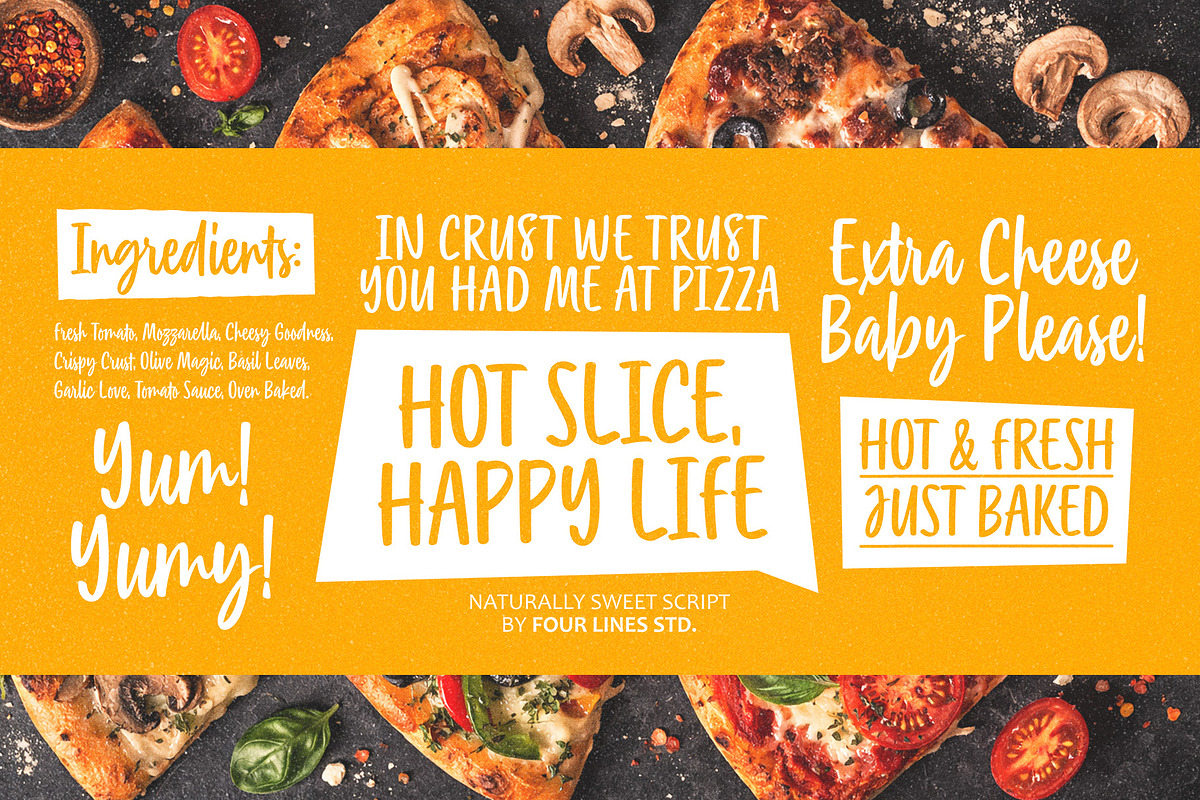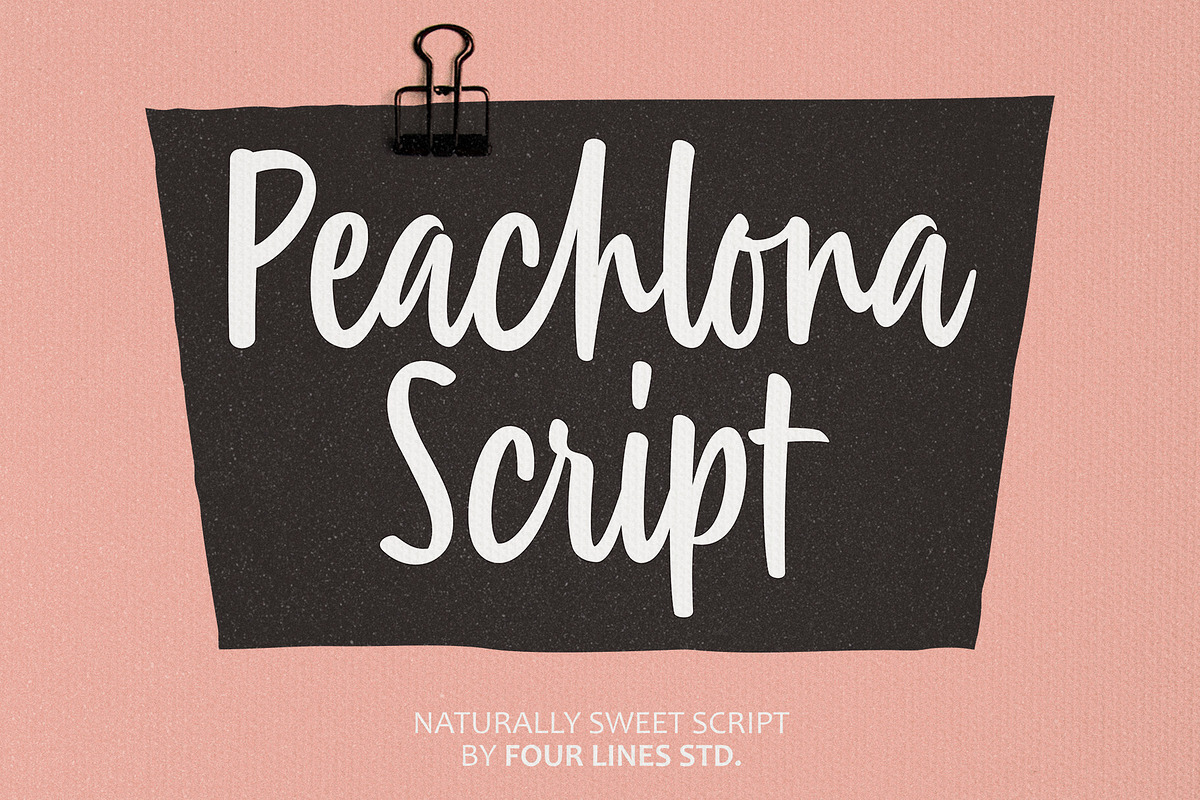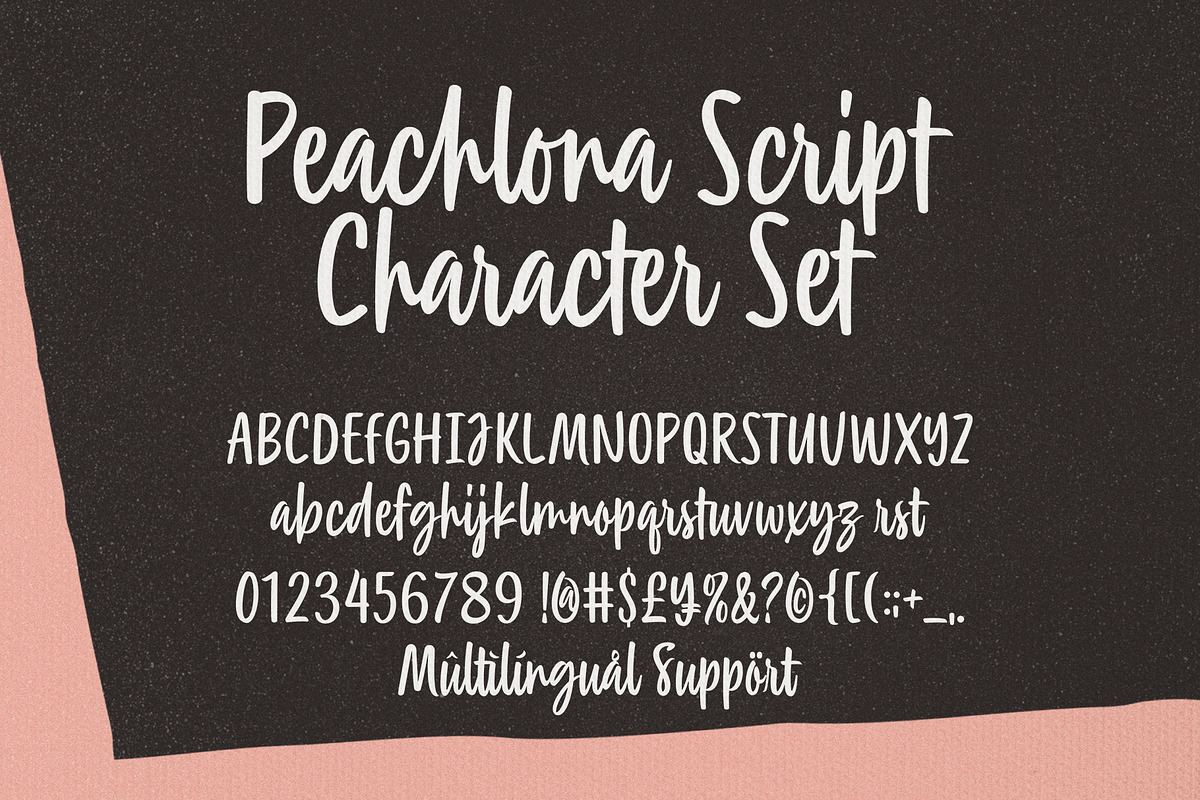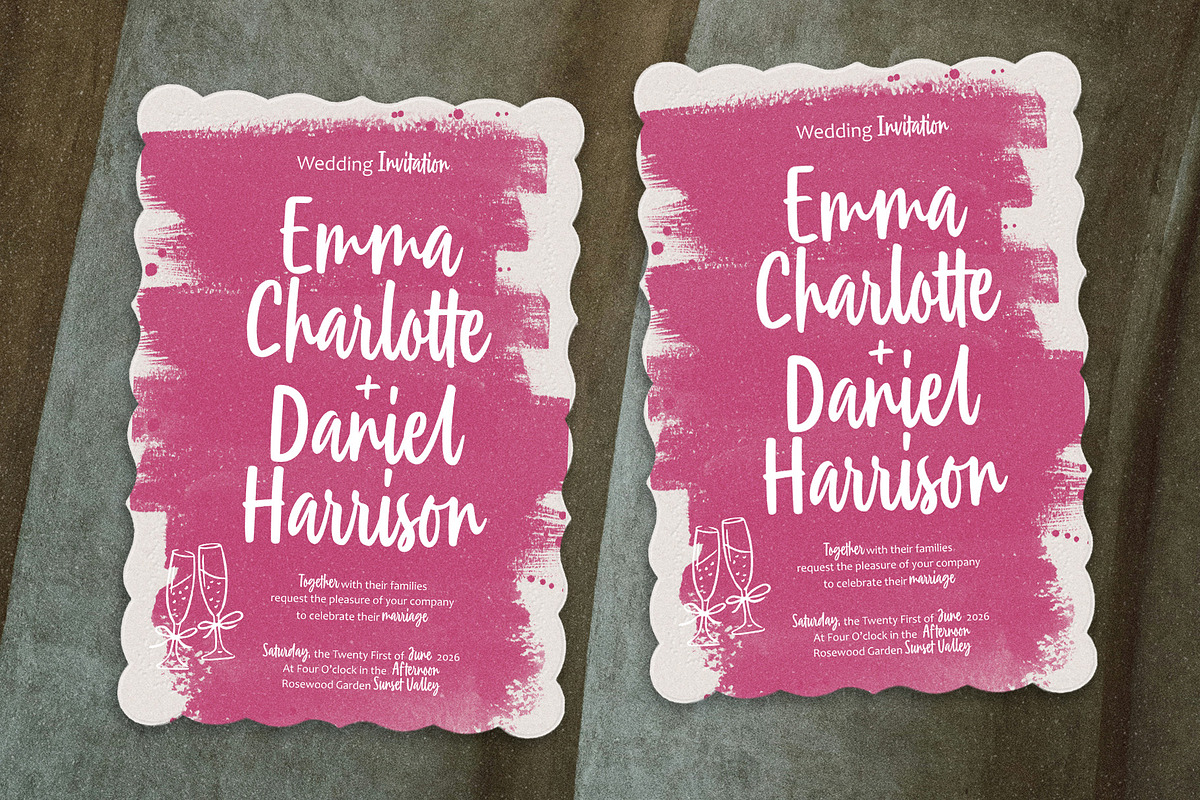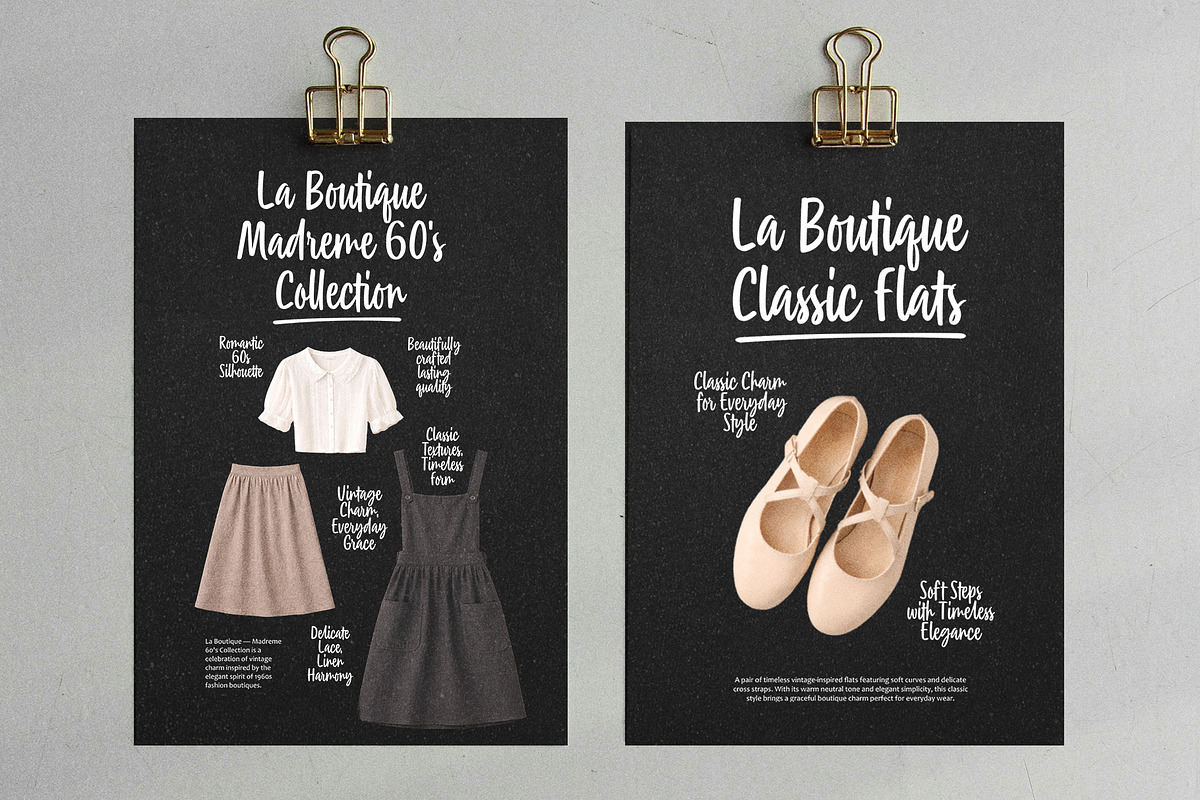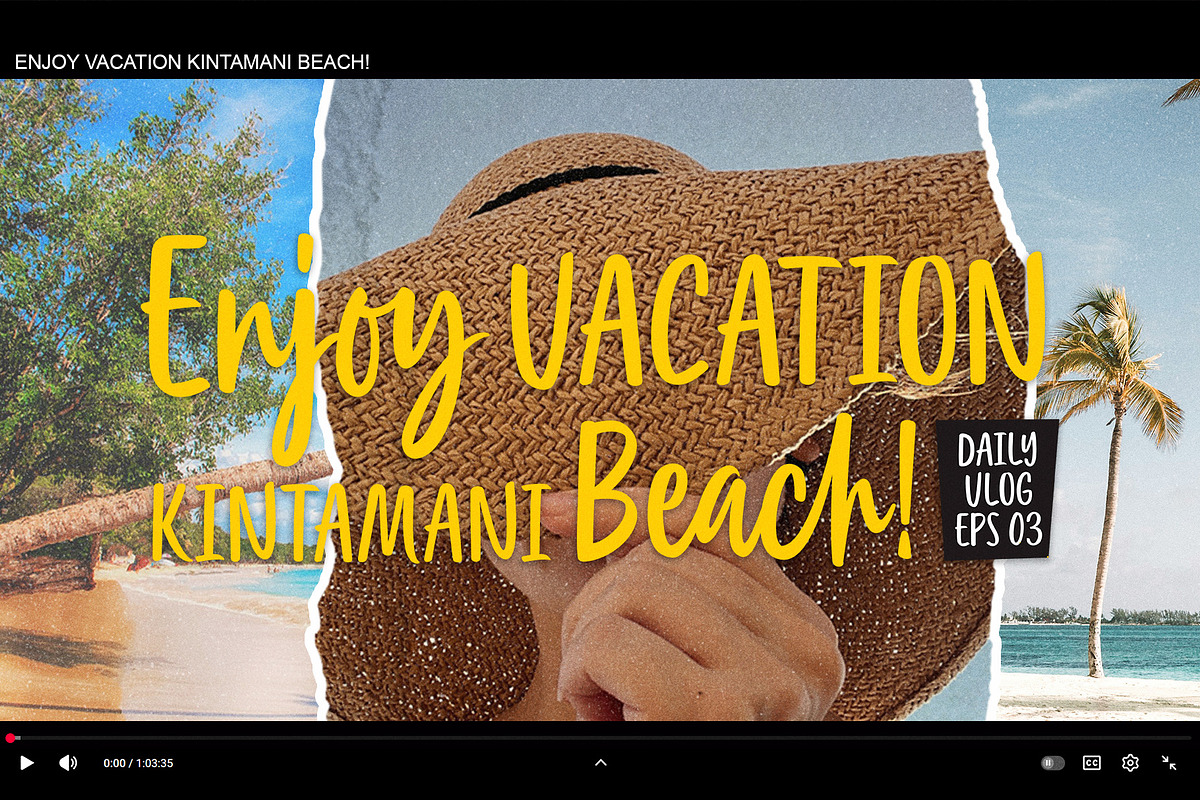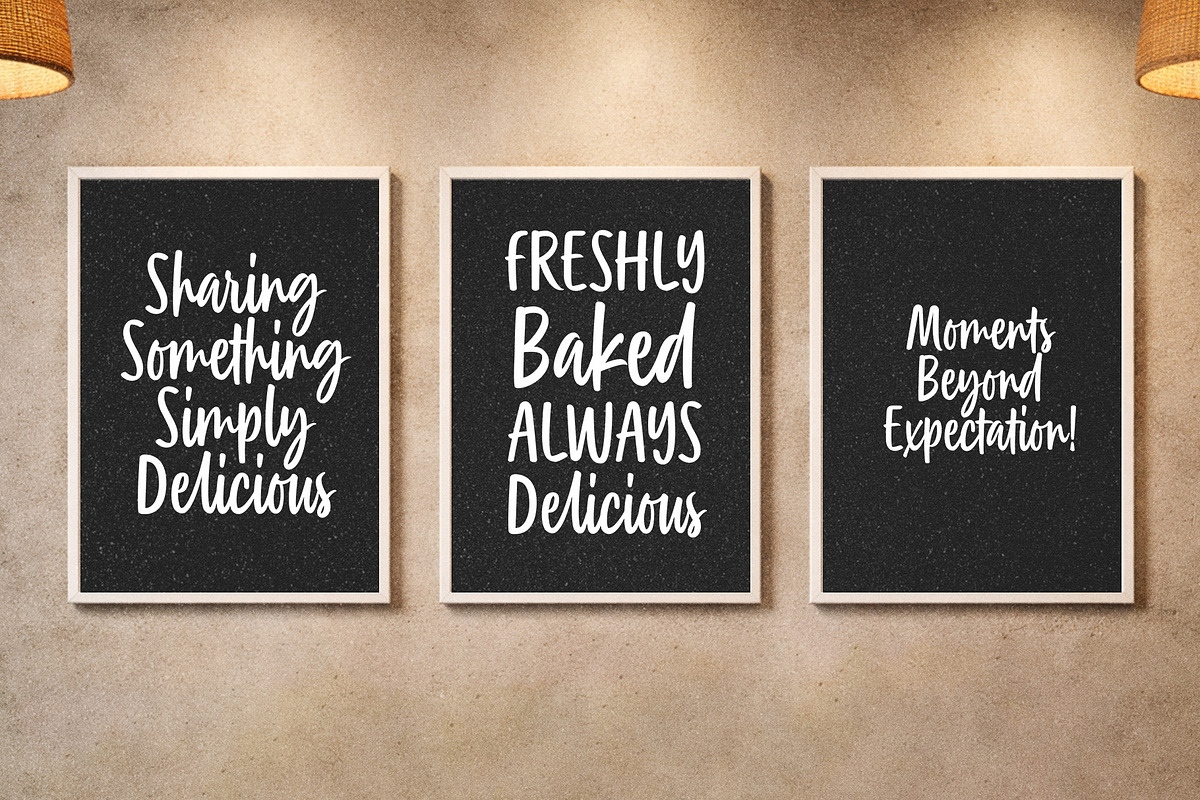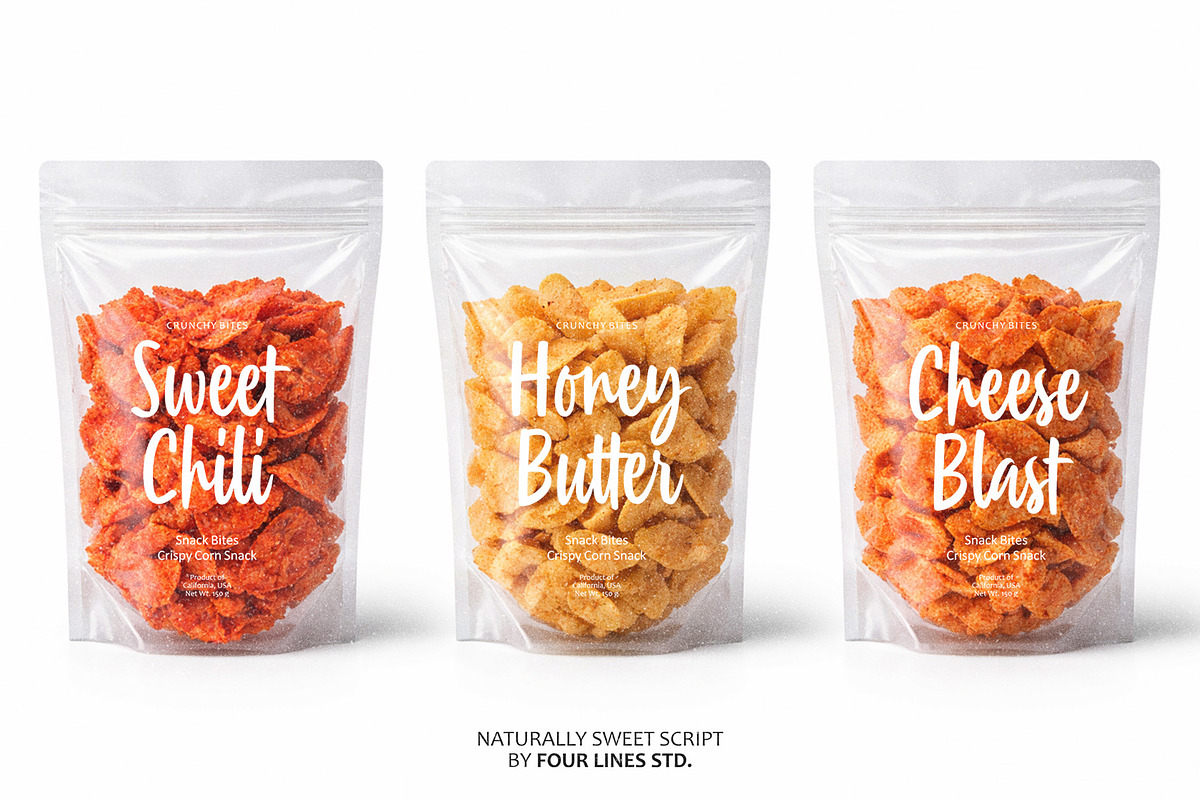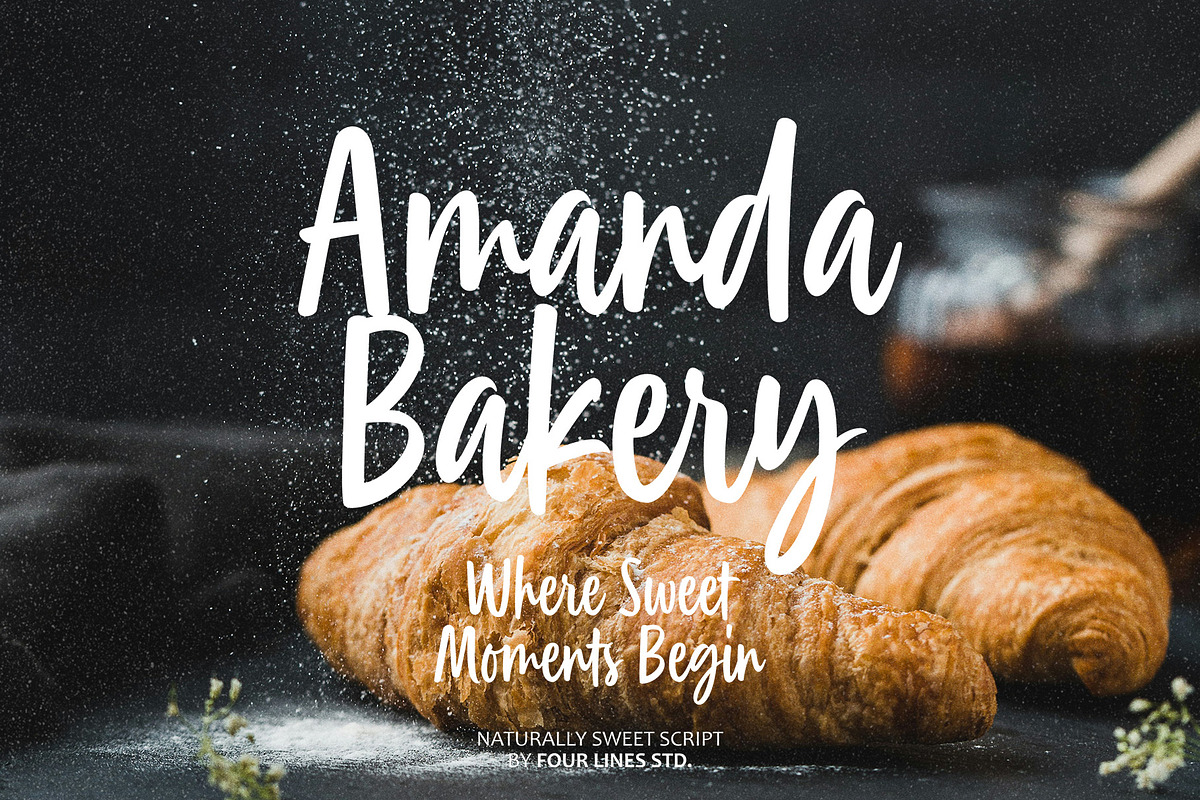
Peachlona Script – Naturally Script
Peachlona Script is a handwritten script font with a soft, natural style and clear readability. It is designed to bring a warm and friendly touch to a wide range of design needs. The letterforms flow smoothly with a relaxed handwritten feel, making the font suitable for titles, logos, and decorative elements in design. Peachlona works well for many creative projects such as branding, product packaging, posters, invitations, and social media content.